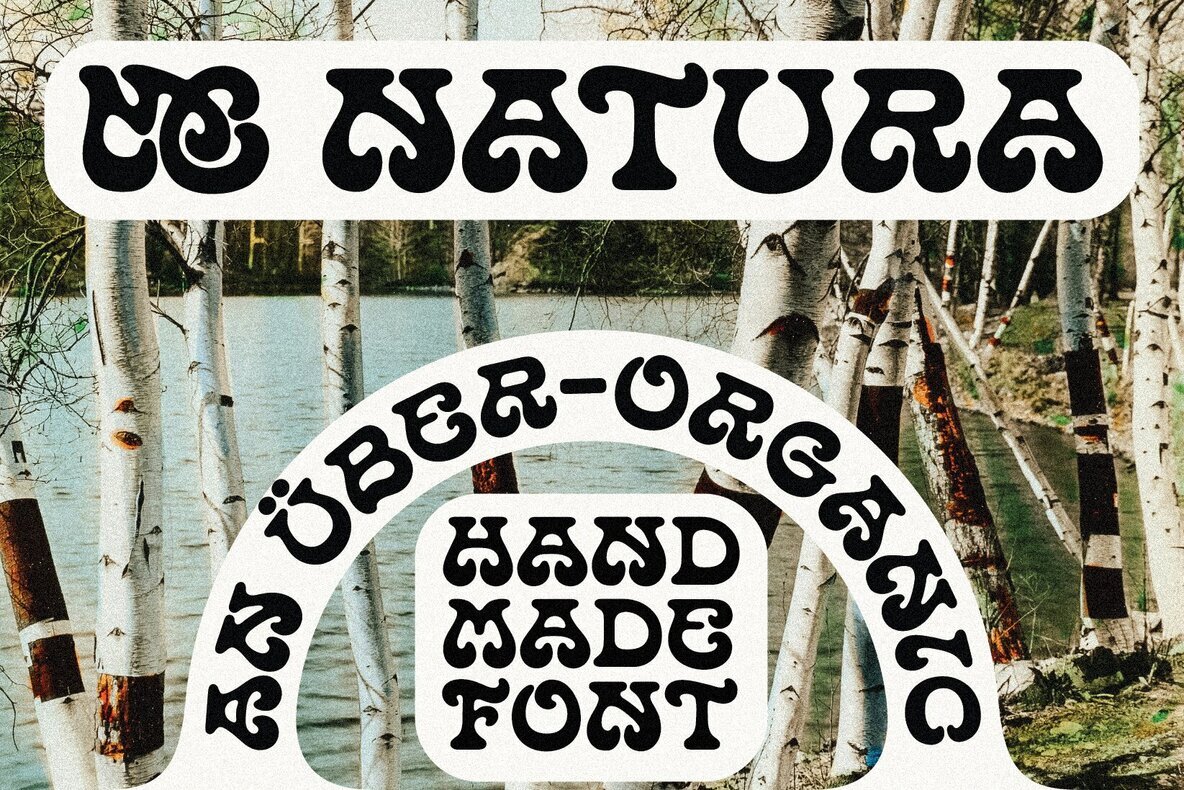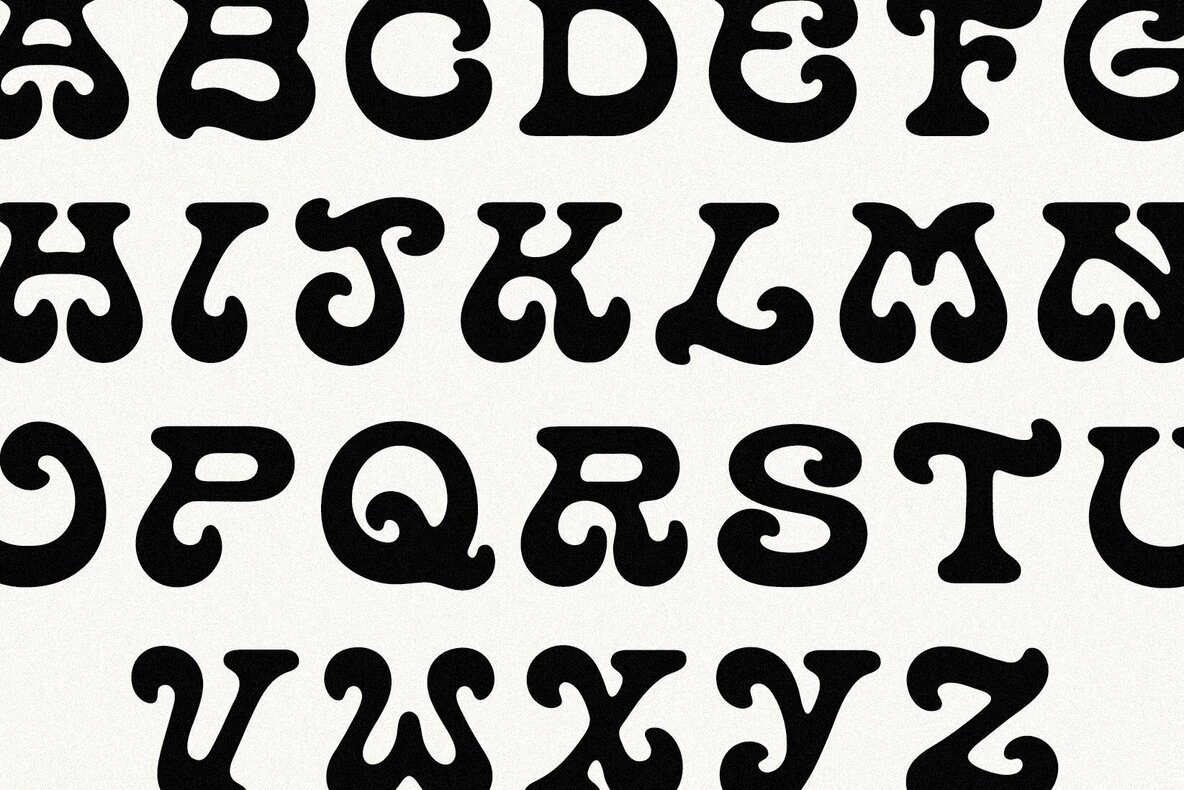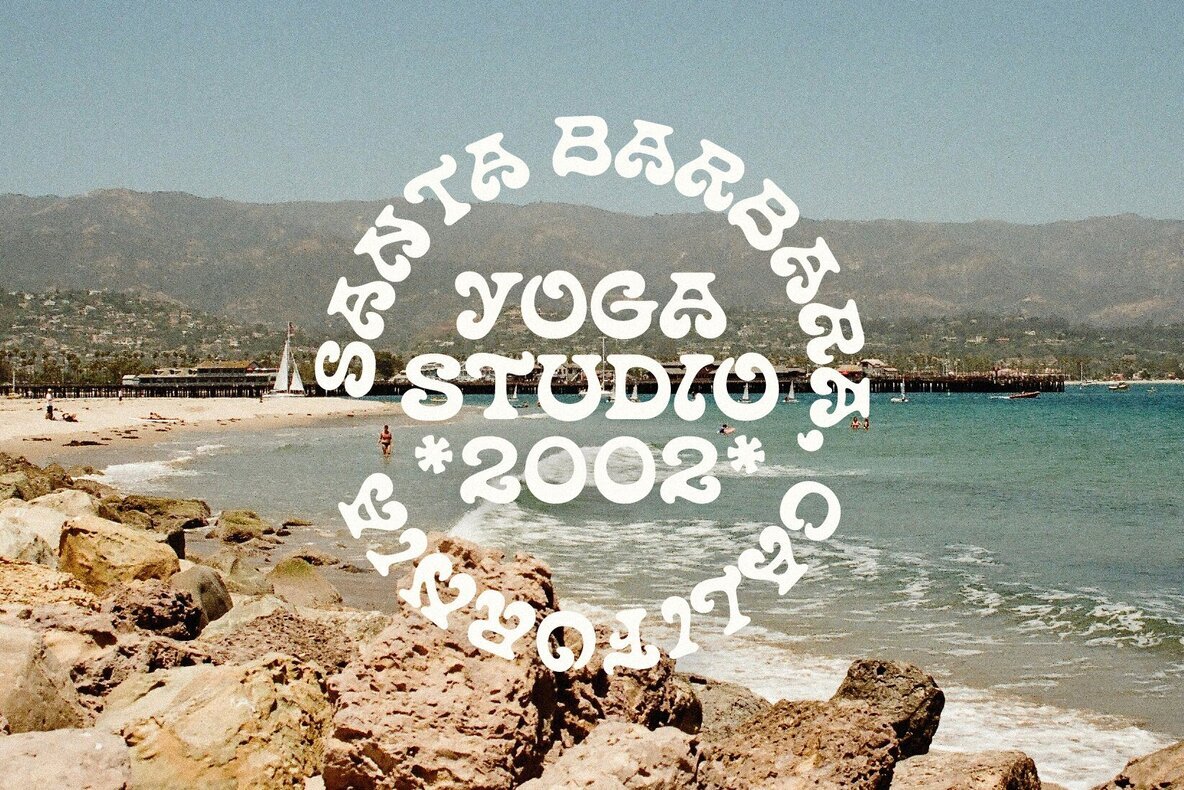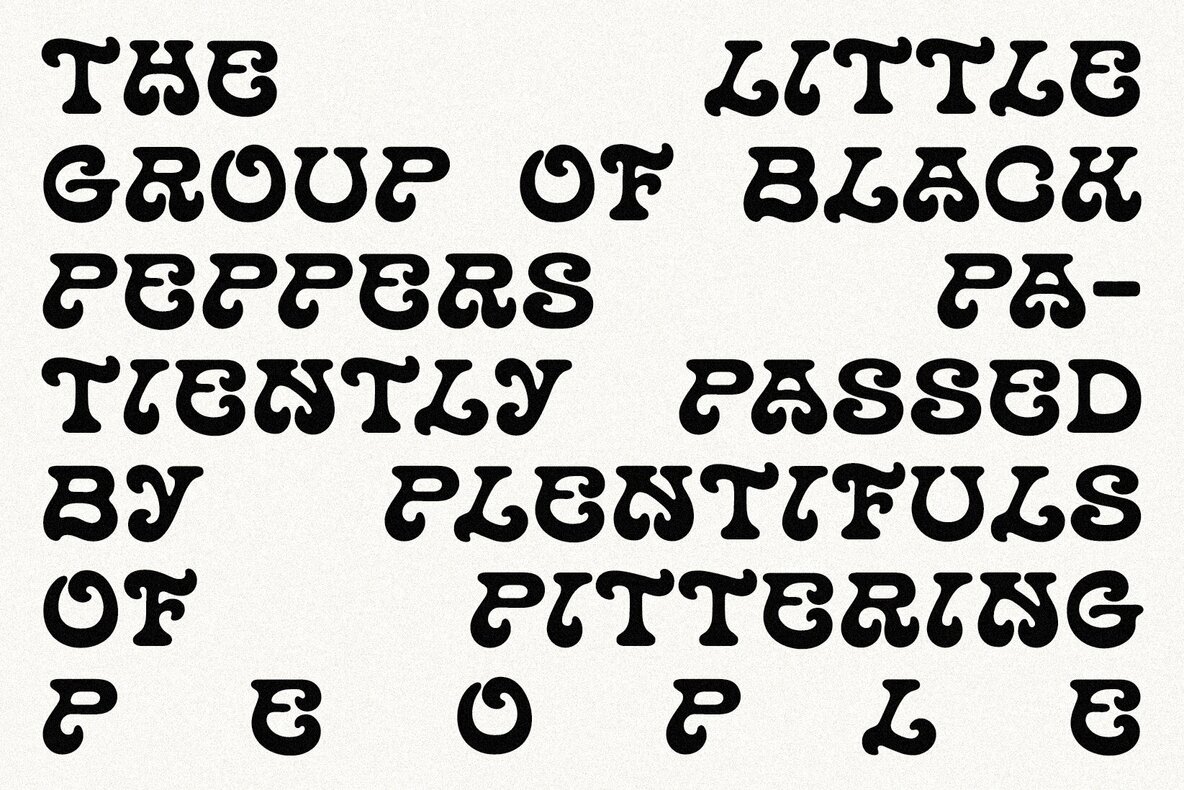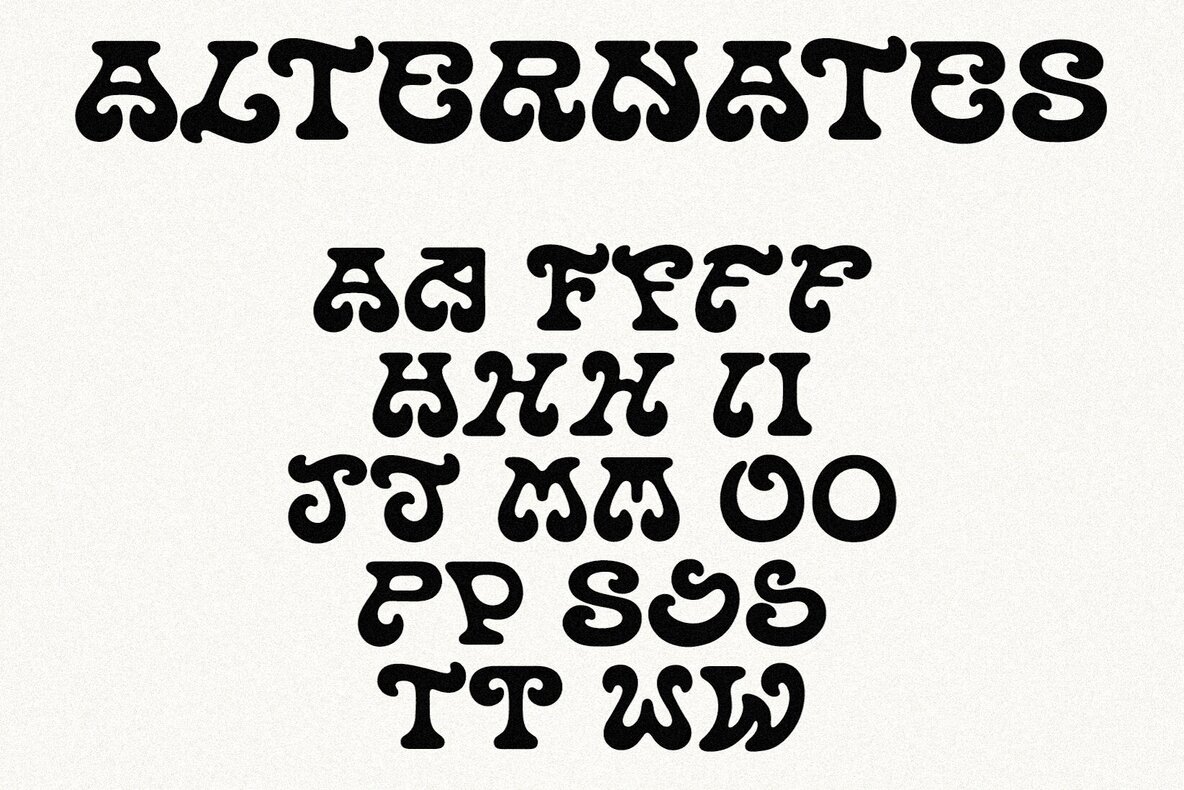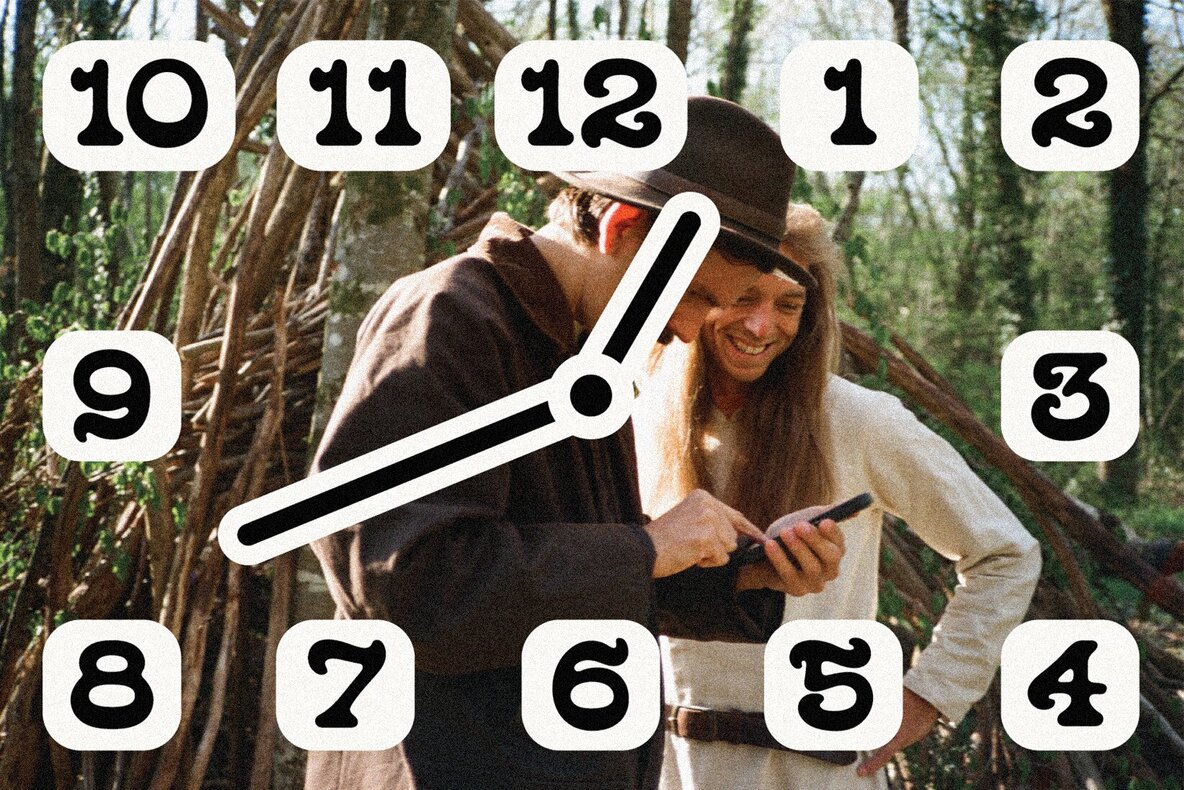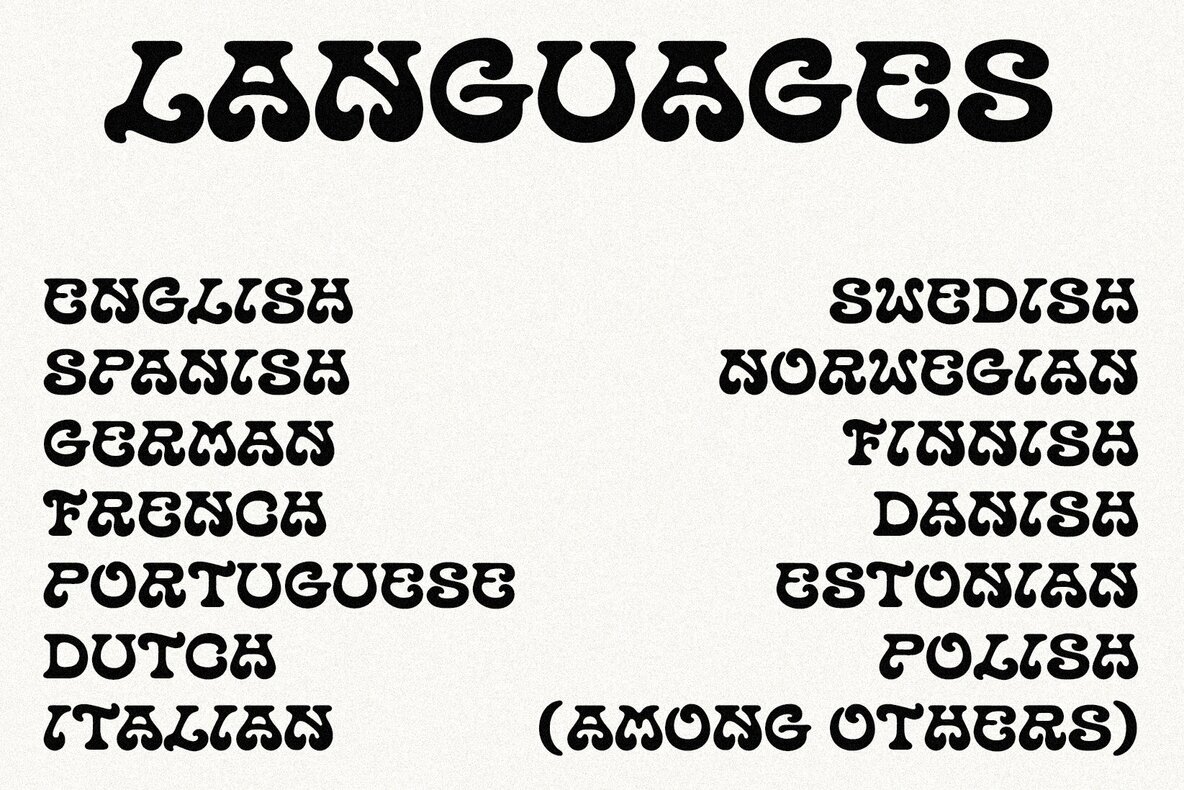
MC Natura Font
MC Natura
Crafted with a touch of nature, MC Natura offers an organic, hand-rendered feel that seamlessly integrates into any creative endeavor. This font exudes warmth and authenticity, making it an ideal choice for brands aiming to convey a grounded, approachable image.MC Natura: An Earthy Typeface for Authentic Brands